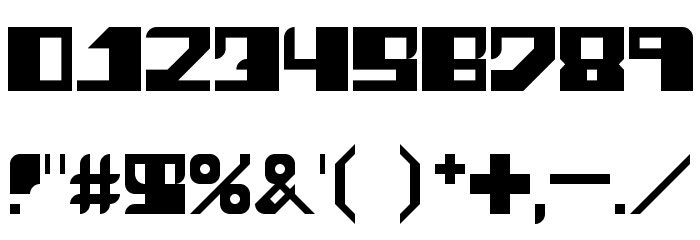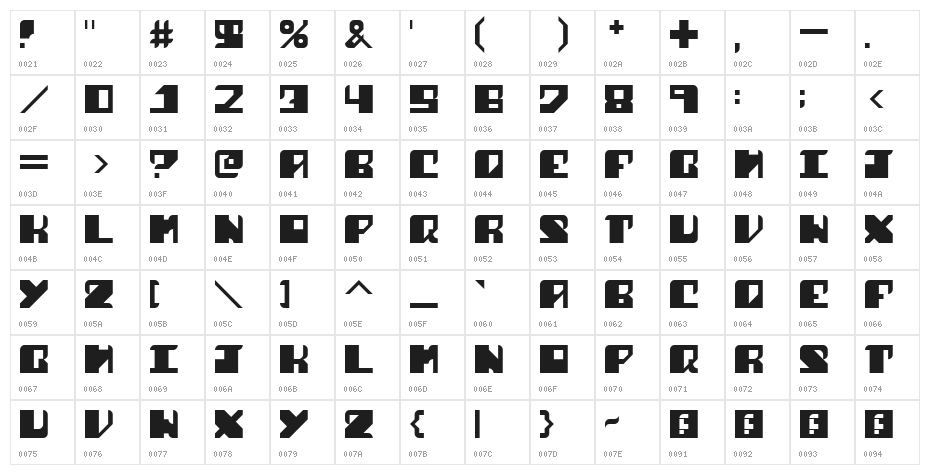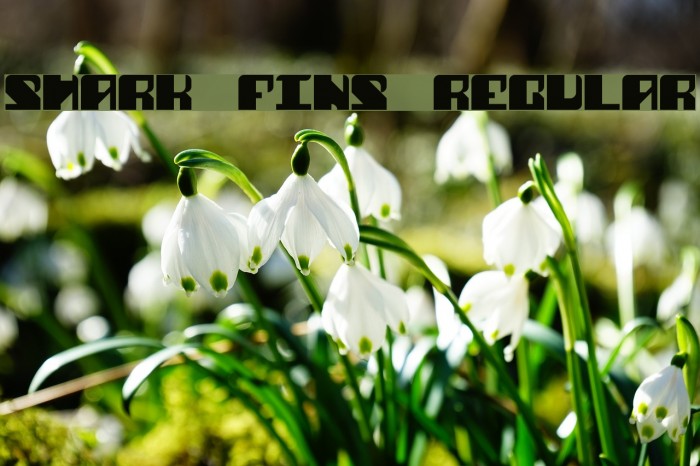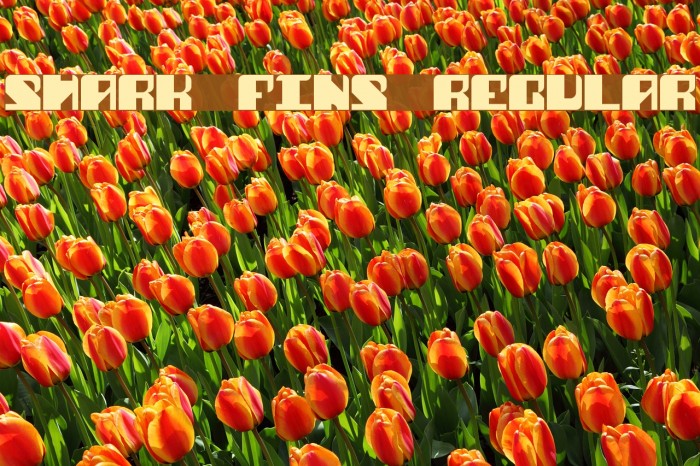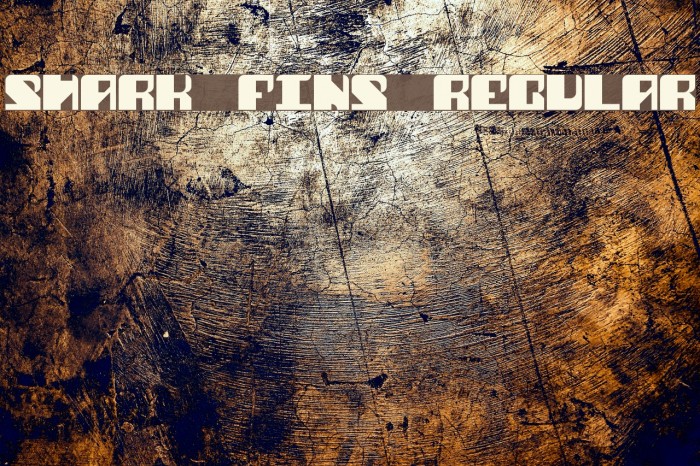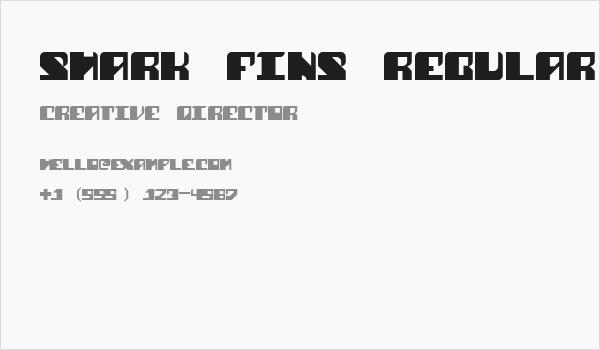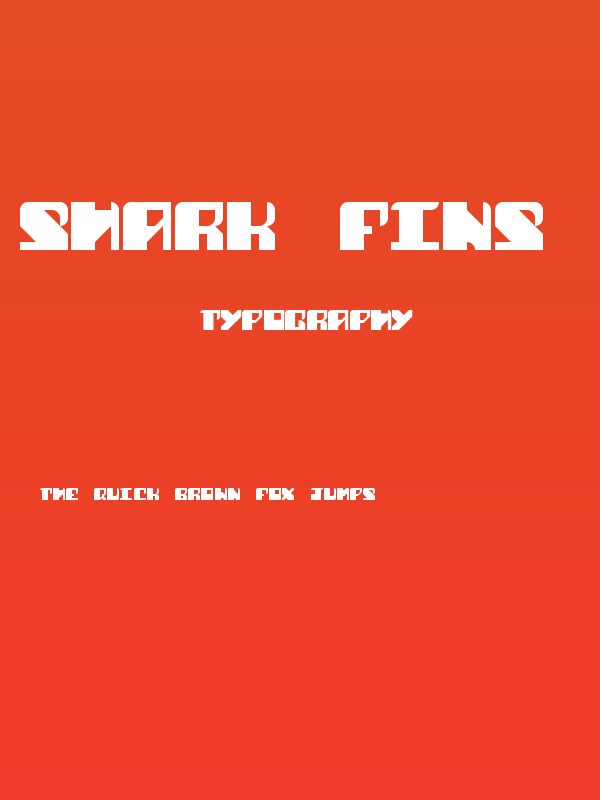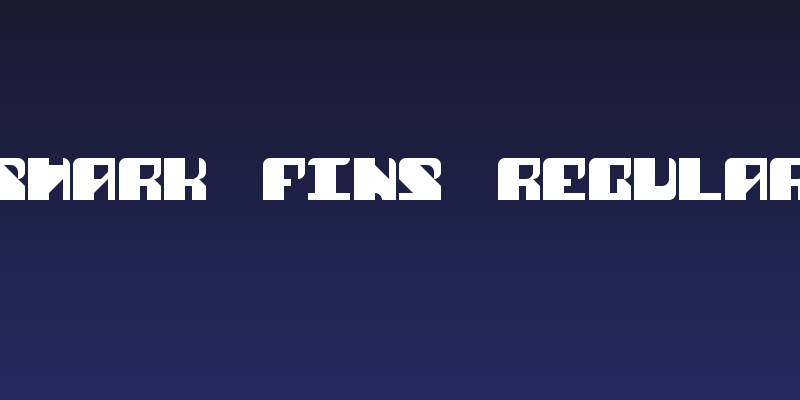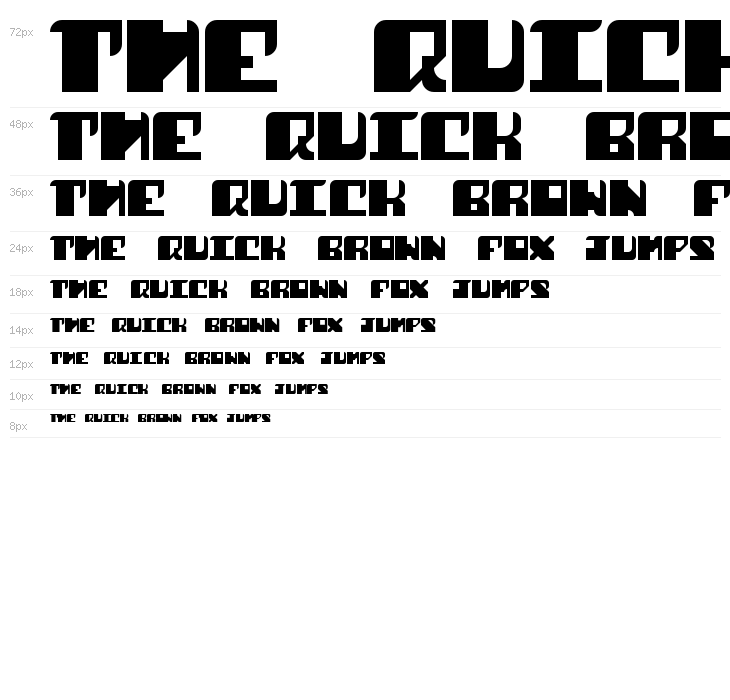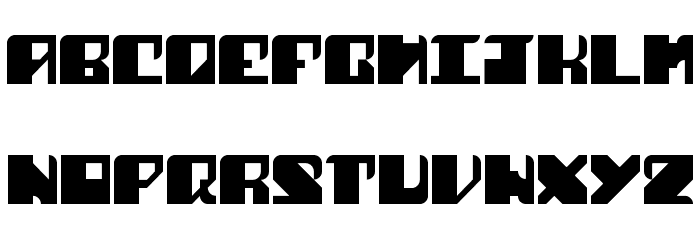
Shark Fins Regular Font
Shark Fins Regular Description
This font features a bold and geometric design with sharp angles and a modern aesthetic. The characters are constructed with solid, block-like shapes that give a sense of strength and stability. The uppercase and lowercase letters maintain a consistent style, with distinct cuts and edges that create a dynamic and edgy appearance. The numbers and special characters follow the same design principles, ensuring uniformity across the font. This style is particularly eye-catching and can be used to make a strong visual impact.
Proposed ProjectsIdeal for branding, posters, headlines, and any project requiring a bold, modern statement.